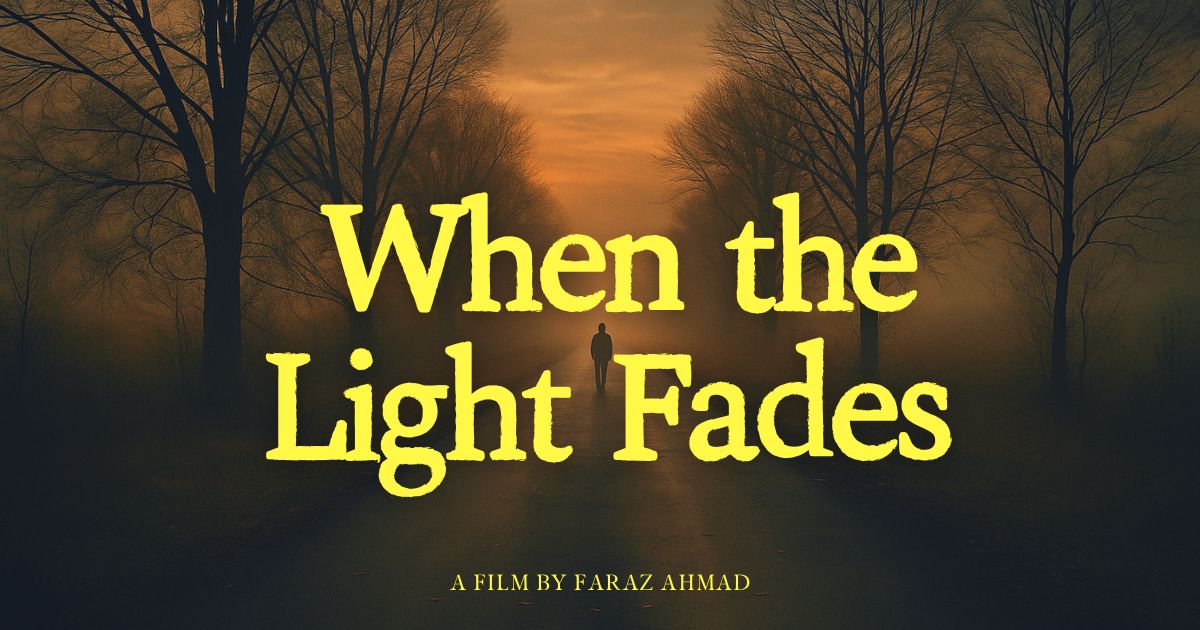
A film’s title sequence isn’t just text on a screen it’s the first impression. The typography you choose sets the feel before a single line of dialogue is spoken. It quietly frames the mood, the world, the time period. In that opening moment, the correct cinematic fonts becomes as crucial as lighting or music.
That’s why filmmakers from intimate indie creators to large production studios are paying more attention to typography. The font is no longer an afterthought. It’s part of the storytelling.
A great film font carries emotional weight. It doesn’t feel like a generic typeface — it feels like part of the world you’re watching.
Typography, when chosen well, can speak just as clearly as any character.
Shine Typewriter
Its rough edges and analog imperfection make it a natural fit for dramas, memoir-style storytelling, or any scene that calls for authenticity and vulnerability. It doesn’t pretend to be perfect — and that’s exactly the point.
Faraz Modern Serif
A refined but distinctive voice. Contemporary without being cold, it’s ideal for films that explore design, beauty, or character-driven narratives with a timeless touch.
We’ve designed our fonts with visual storytelling at heart. Every glyph and curve is crafted to hold up on high-resolution screens — whether projected in a dark theater or viewed on a mobile device. These are fonts made for cinematic clarity and emotional nuance.
Typography should never be a roadblock. It should be an invisible collaborator — one that quietly enhances your vision without pulling focus.
Because in film, every frame matters — including the ones with words.